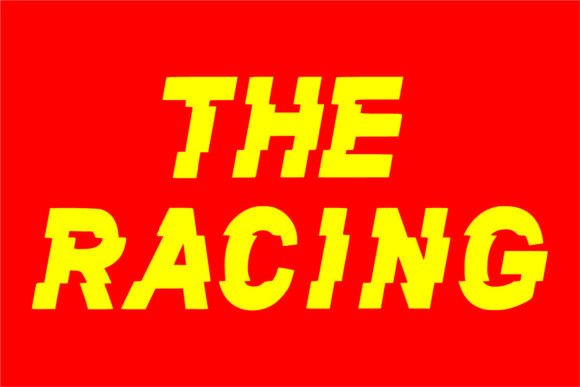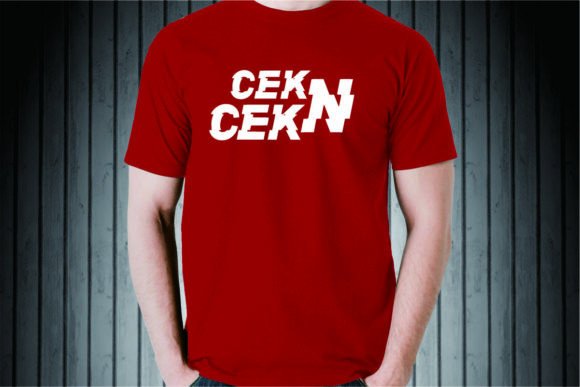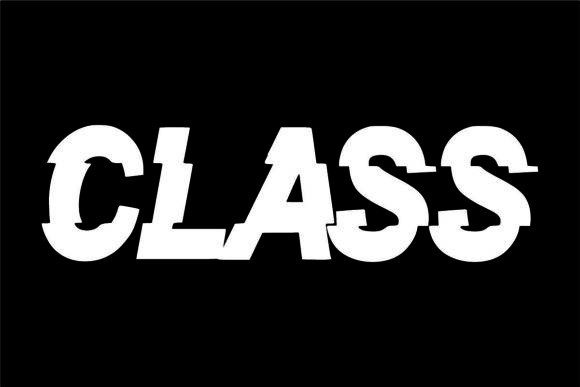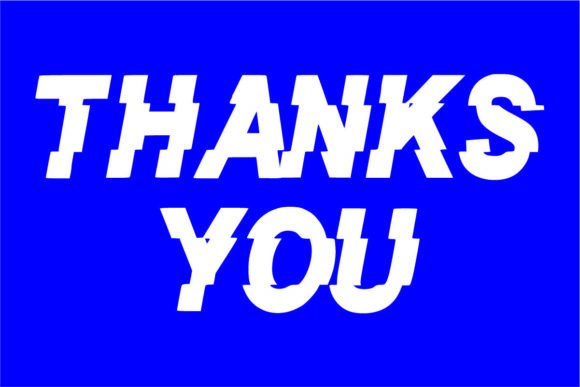
Cek N Cek Font: The Ultimate Display Font for Bold and Unique Designs
Are you tired of using the same old fonts for your designs? Look no further than Cek N Cek, a cool and bold display font that’s perfect for making a statement. With its dynamic effects and unique appeal, Cek N Cek is ideal for a wide range of design projects, from headlines and t-shirt designs to automotive posters, logos, and more.
What Makes Cek N Cek Font So Special?
Cek N Cek font is a one-of-a-kind display font that features a bold and dynamic design. Its unique appeal is sure to grab attention and make your designs stand out from the crowd. The font’s bold and chunky letters are perfect for creating eye-catching headlines, while its dynamic effects add an extra layer of visual interest.
Cek N Cek font is versatile and can be used for a wide range of design projects, including:
• Headlines: Use Cek N Cek to create bold and eye-catching headlines that grab attention.
• T-shirt designs: Add a fun and unique touch to your t-shirt designs with Cek N Cek.
• Automotive posters: Use Cek N Cek to create bold and dynamic posters for car shows, racing events, and more.
• Logos: Create a unique and memorable logo for your business or brand with Cek N Cek.
• Social media graphics: Use Cek N Cek to add a bold and eye-catching touch to your social media graphics.
Key Features of Cek N Cek Font
Cek N Cek font features a range of key features that make it perfect for designers and crafters, including:
• Bold and dynamic design: Cek N Cek features a bold and dynamic design that’s sure to grab attention.
• Unique appeal: The font’s unique appeal sets it apart from other display fonts.
• Easy to read: Despite its bold design, Cek N Cek is easy to read, even at small sizes.
• Versatile: Cek N Cek can be used for a wide range of design projects.
Tips for Using Cek N Cek Font
Here are some tips for using Cek N Cek font in your designs:
• Use it sparingly: Cek N Cek is a bold font, so use it sparingly to avoid overwhelming your design.
• Pair it with a simple font: Pair Cek N Cek with a simple font to create contrast and make your design stand out.
• Experiment with colors: Cek N Cek looks great in a range of colors, so experiment to find the perfect color for your design.
• Use it for emphasis: Use Cek N Cek to add emphasis to certain words or phrases in your design.
Cek N Cek font is a cool and bold display font that’s perfect for designers and crafters looking to add a unique touch to their designs. With its dynamic effects and unique appeal, Cek N Cek is ideal for a wide range of design projects. Whether you’re creating headlines, t-shirt designs, automotive posters, logos, or social media graphics, Cek N Cek is sure to make your designs stand out from the crowd.